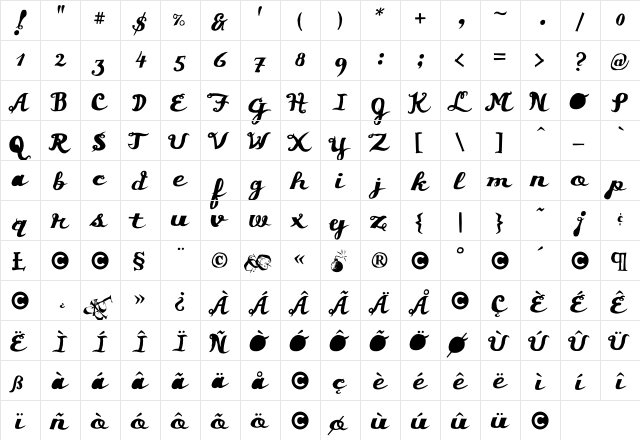
Crotchless TeddyRoosevelt
Design Context for Crotchless Typeface
Crotchless is a composed and adaptable typeface that performs quietly and consistently across a wide range of design contexts.